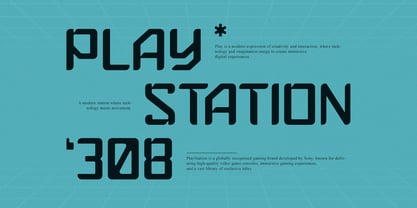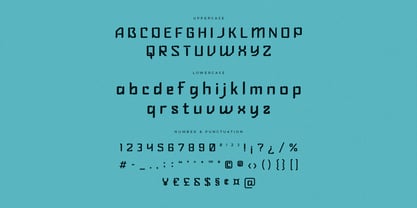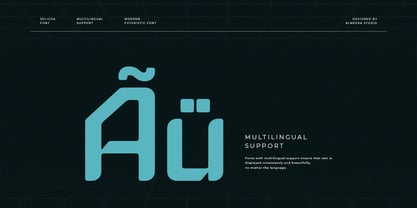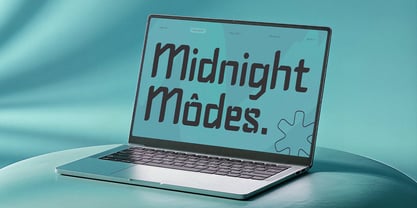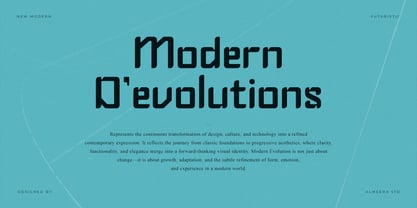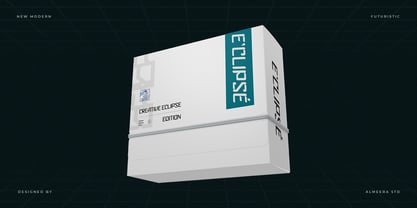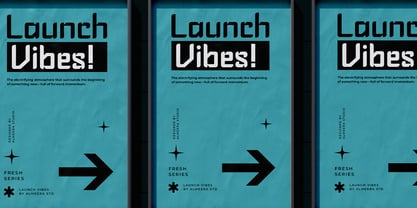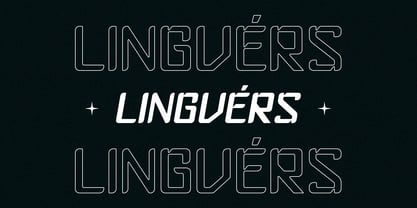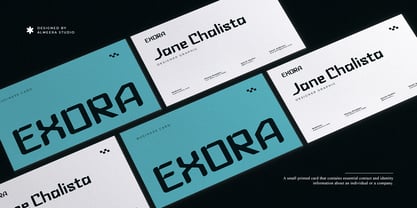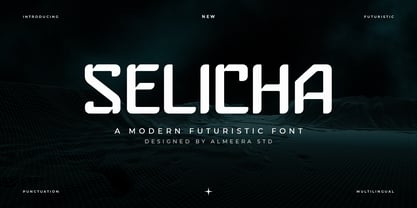
Selicha
by Almeera Studio
The Selicha Font Family was designed by Rinto Dwi Nugroho and published by Almeera Studio. Selicha contains 1 styles.
Selicha is a bold, precision-engineered futuristic display typeface that projects power, speed, and technological authority. Built on a modular uppercase structure with strategically rounded corners, it sits at the exact intersection of mechanical rigidity and digital fluidity — a typeface that looks like it was designed for the next decade.
The letterforms are confident and unapologetic: wide, heavy, and commanding at any scale. The subtle rounding of corners prevents the coldness of pure geometric construction and instead lends Selicha an approachability that pure industrial fonts lack. This makes it versatile across a wider range of applications than its bold personality might initially suggest.
Selicha dominates in tech product launches, gaming branding, esports identity, sci-fi editorial, motion graphics, crypto and Web3 projects, automotive campaigns, and any visual context that demands a typeface from the future. It arrives with full punctuation and multilingual support, ready for global deployment.